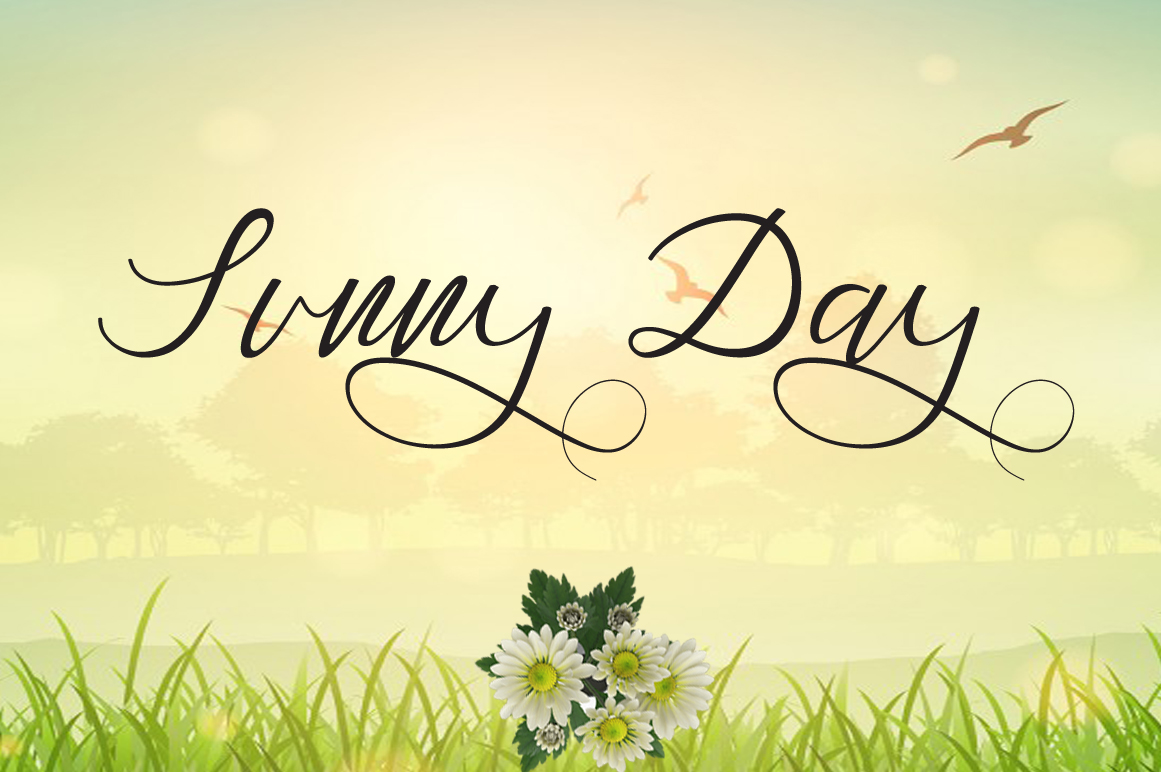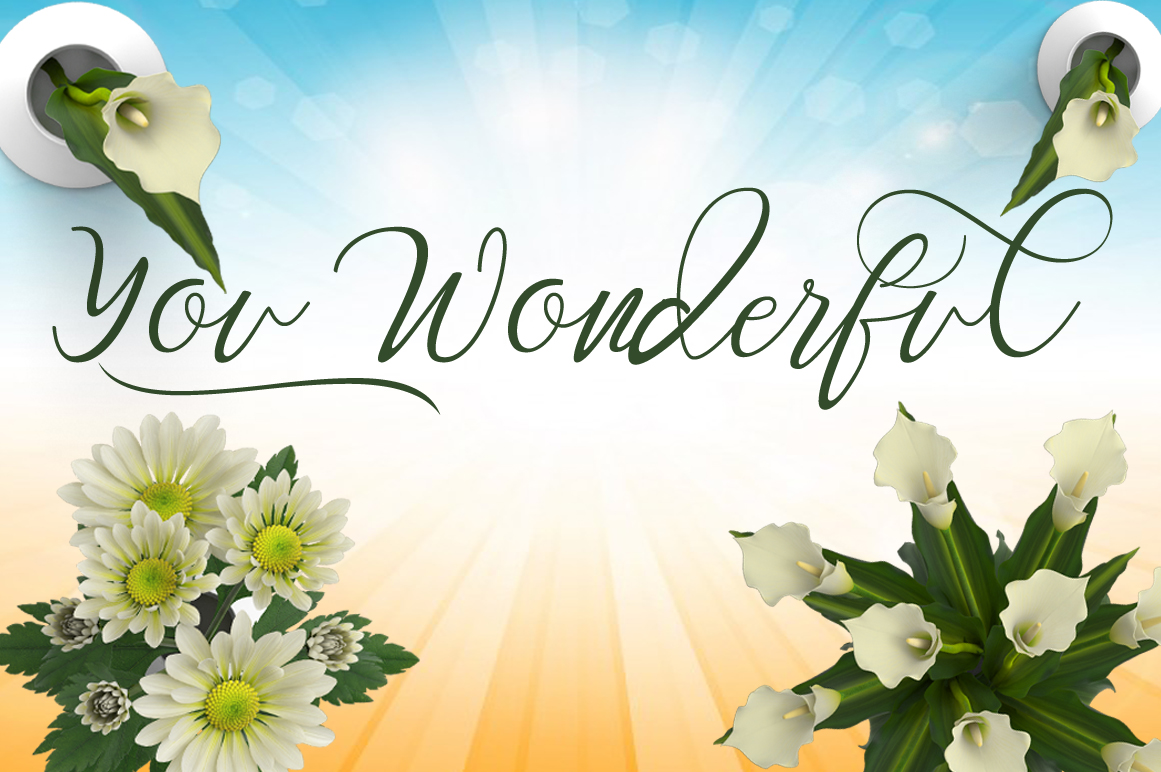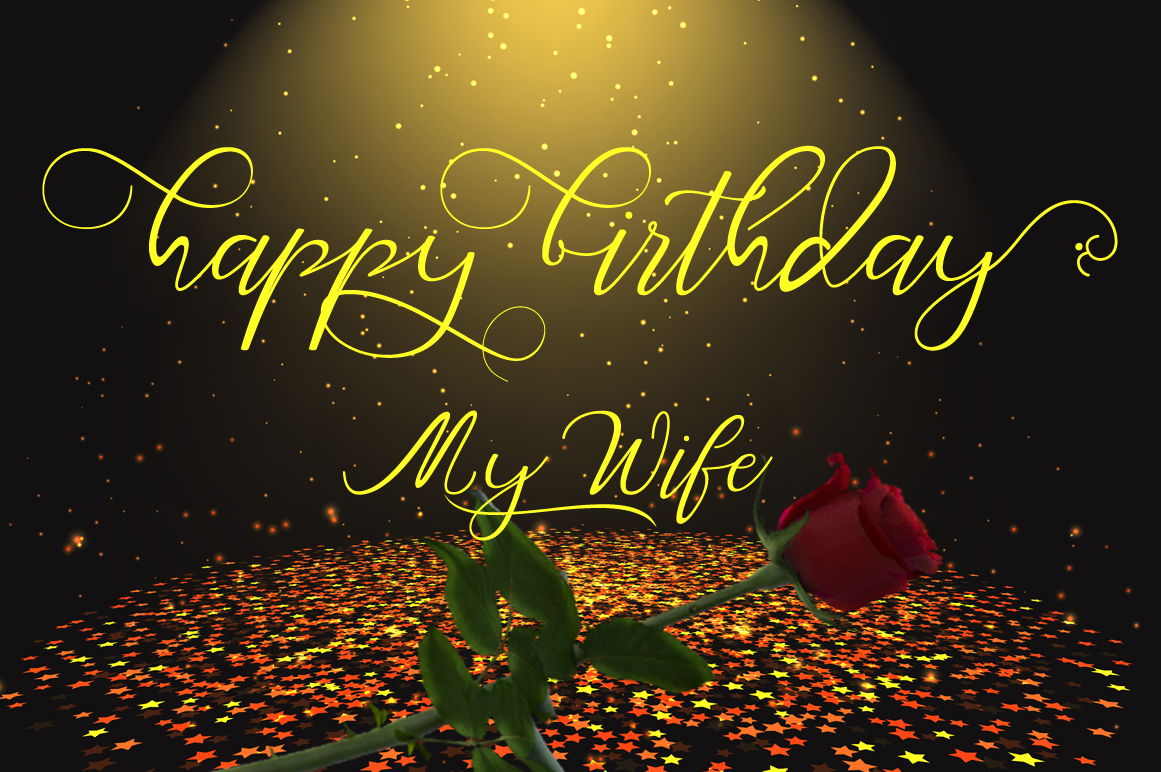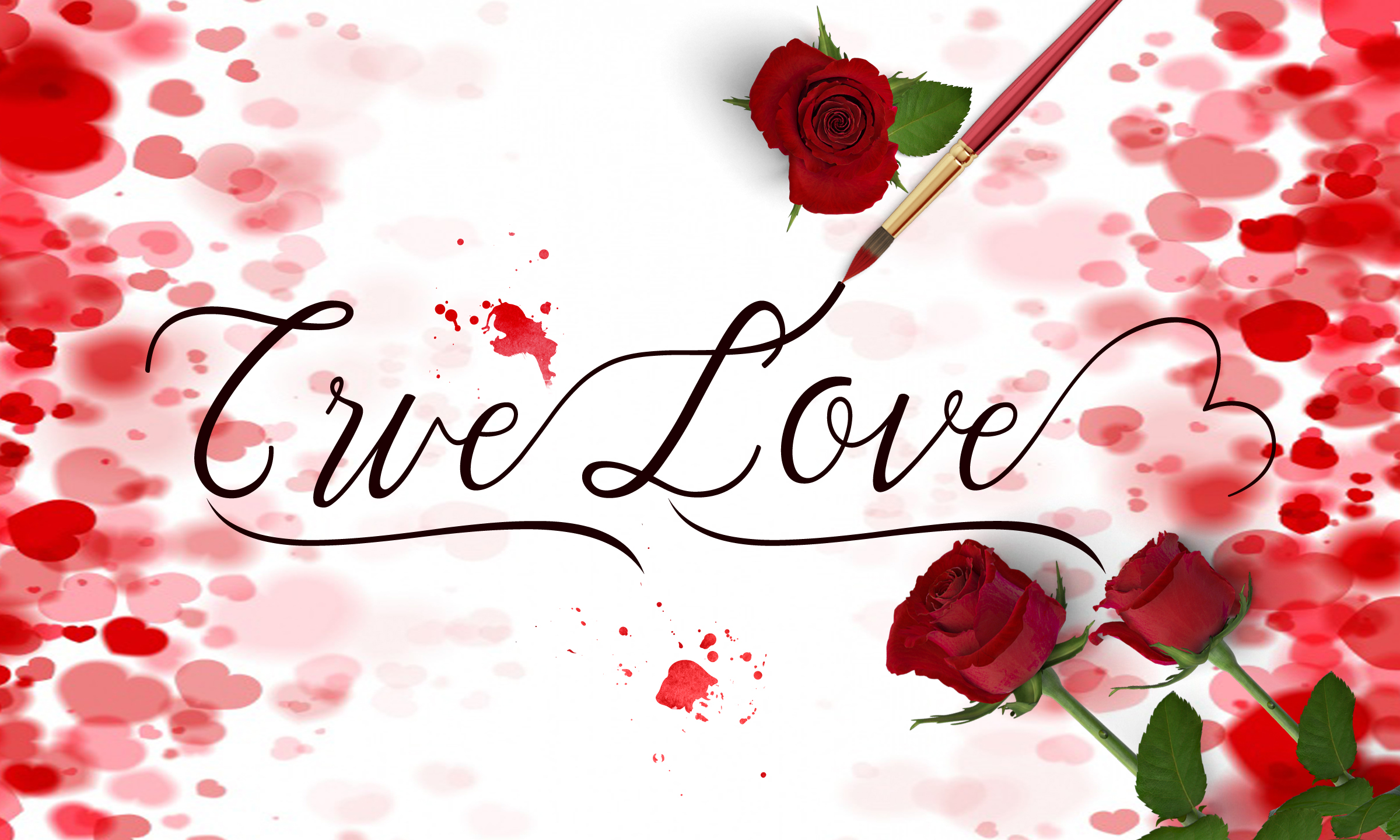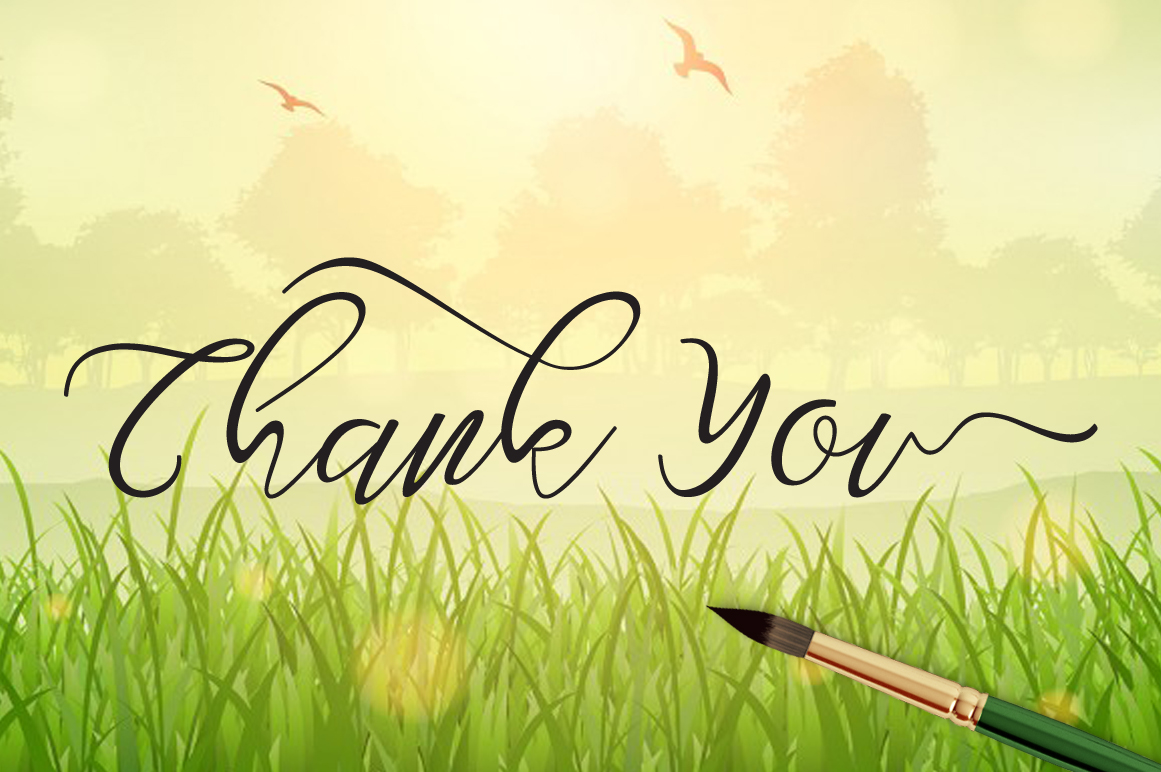
Feronika Font: Elevate Your Designs with Elegance and Sophistication
In the world of typography, fonts play a crucial role in conveying the tone and personality of a design. For designers and crafters seeking to add a touch of elegance and sophistication to their projects, Feronika Font is an excellent choice. This smooth and elegant calligraphy font boasts a modern coating, making it perfect for a wide range of applications, from invitations and cards to signs and other projects that require a gentle, personal touch.
What is Feronika Font?
Feronika Font is a beautifully crafted calligraphy font that exudes refinement and poise. Its smooth lines and elegant curves make it an ideal choice for designers looking to create stunning visual content. The font’s modern coating adds a touch of contemporary flair, ensuring that your designs stay fresh and relevant.
Key Features of Feronika Font
• Smooth and Elegant: Feronika Font features smooth lines and elegant curves, making it perfect for creating sophisticated designs.
• Modern Coating: The font’s modern coating adds a touch of contemporary flair, ensuring that your designs stay fresh and relevant.
• Versatile: Feronika Font is suitable for a wide range of applications, including invitations, cards, signs, and other projects that require a gentle, personal touch.
• Easy to Read: The font’s clear and legible design makes it easy to read, even at smaller sizes.
Use Cases for Feronika Font
Feronika Font is an incredibly versatile font that can be used in a variety of design projects. Here are some use cases to get you started:
• Invitations: Create stunning wedding invitations, birthday invitations, or any other type of invitation that requires a touch of elegance.
• Cards: Design beautiful greeting cards, thank-you cards, or congratulations cards that will leave a lasting impression.
• Signs: Use Feronika Font to create eye-catching signs for events, businesses, or personal projects.
• Branding: Incorporate Feronika Font into your brand identity to add a touch of sophistication and elegance.
Tips for Using Feronika Font